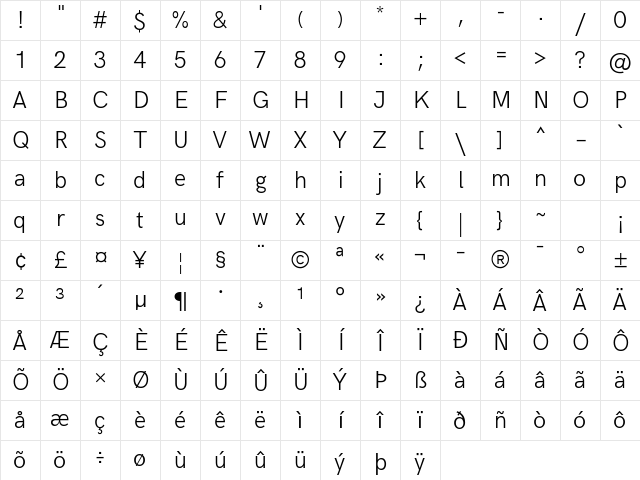
Acari Sans Light Regular
Foundry: Hanken Design Co.
Designer: Alfredo Marco Pradil and Stefan Peev
Design Context for Acari Sans Light
Acari Sans Light is a composed and adaptable typeface that performs quietly and consistently across a wide range of design contexts. Its slender proportions lend an understated elegance to any composition.
Who designed the Acari Sans Light Regular font?